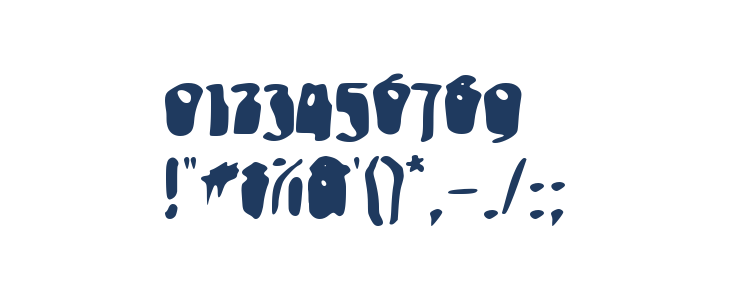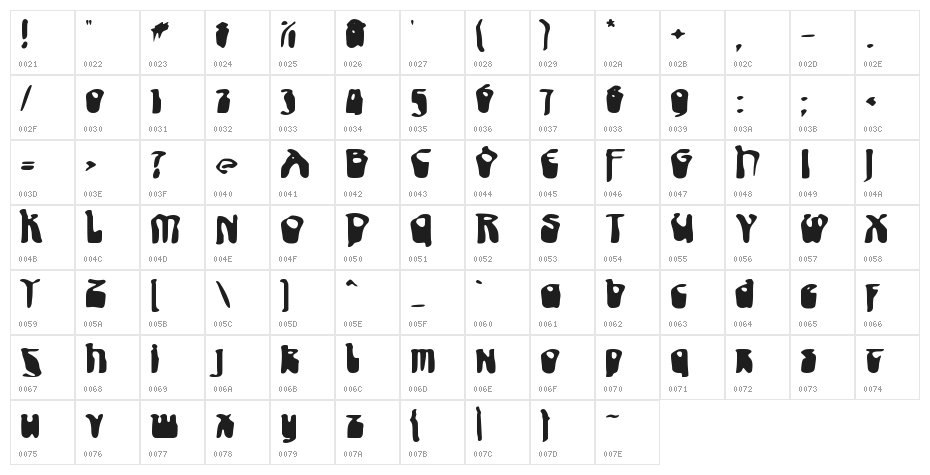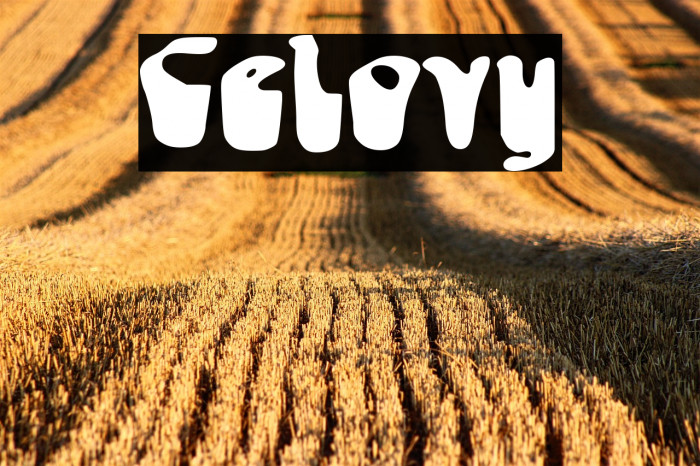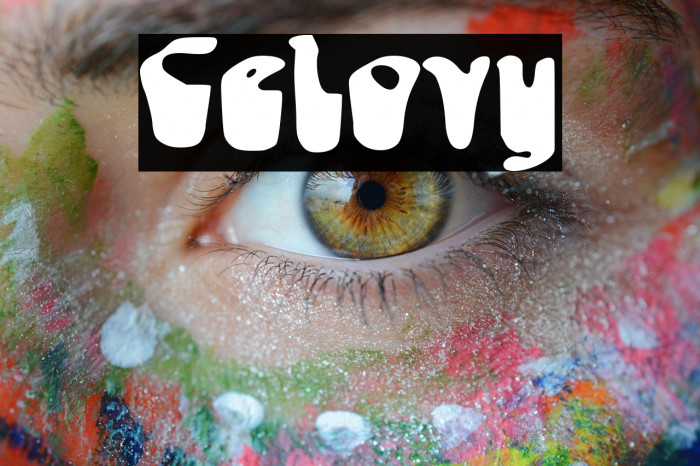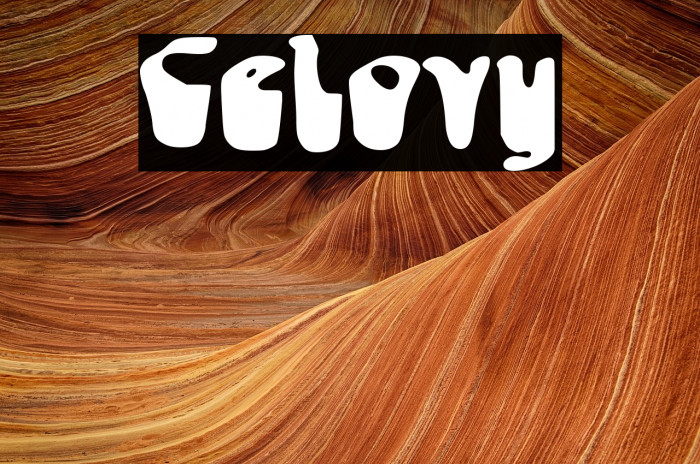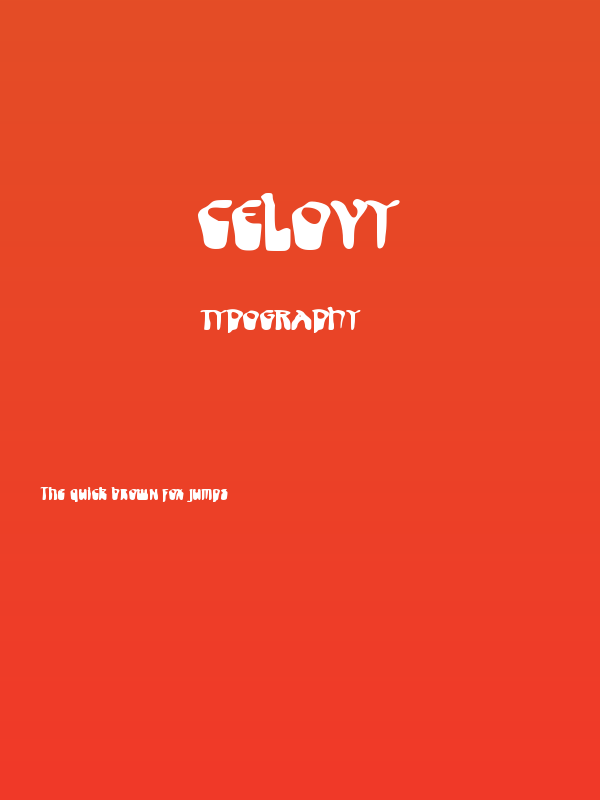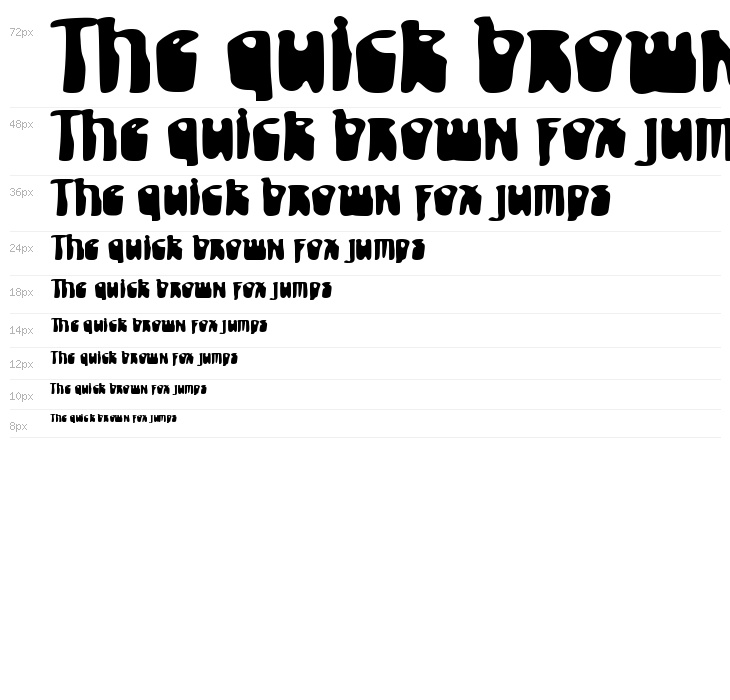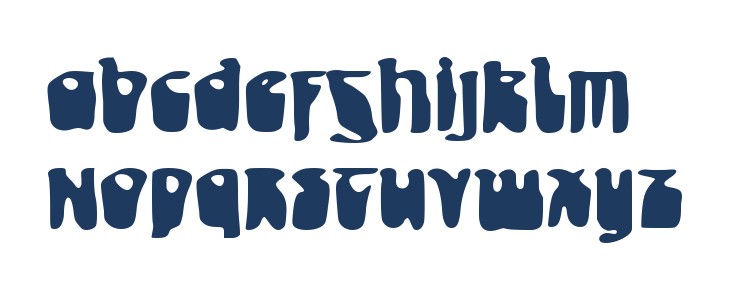
Celovy Font
Celovy Description
This font features a bold and playful design with a unique, organic feel. The characters are heavily stylized, with thick strokes and irregular shapes that give them a lively, almost cartoonish appearance. The uppercase and lowercase letters maintain a consistent style, with rounded edges and a slightly uneven baseline, adding to the whimsical nature of the font. The numbers and special characters follow the same design principles, ensuring a cohesive look across all glyphs. This font is ideal for projects that require a fun and eye-catching typeface, making it suitable for creative and informal applications.
| Overall Style | Playful, Whimsical, Organic |
| Proposed Projects | Ideal for children's books, playful branding, posters, and creative design projects. |